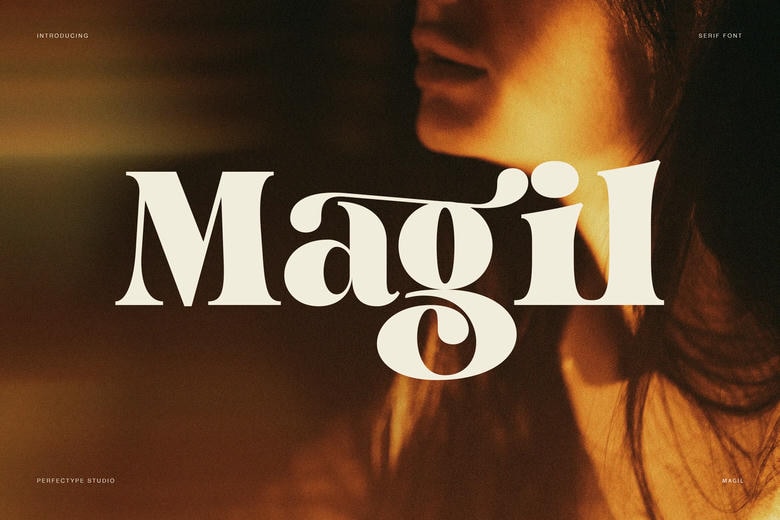
Magil Font
Magil is a modern serif typeface that is designed with a feeling of confidence, warmth, and sophisticated simplicity. At first sight, this font is fashionable and sophisticated. Thus, it is a robust option among typography that designers desire to have that is expressive but at the same time controlled.
Magil is a combination of traditional serif foundations and curvy lines and contrast. Consequently, every letterform is smooth yet balanced. The forms are natural and the little details are personal and do not distract. In addition, the general design is clean, which adds the font a classic and universal feel.
Magil Serif Font